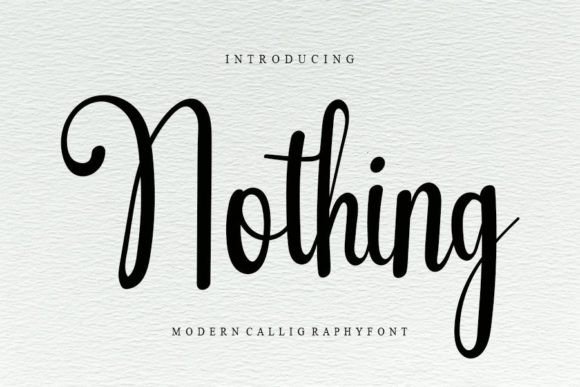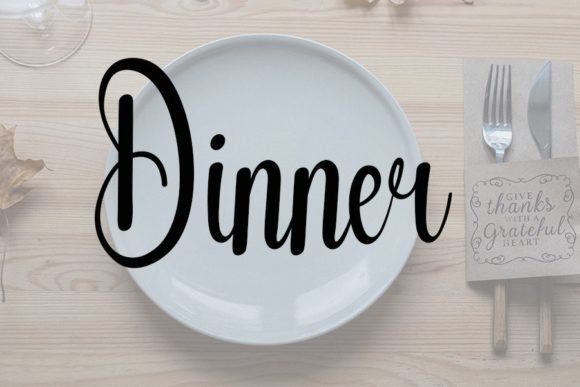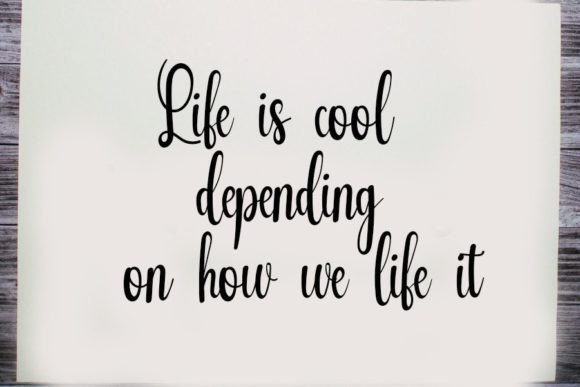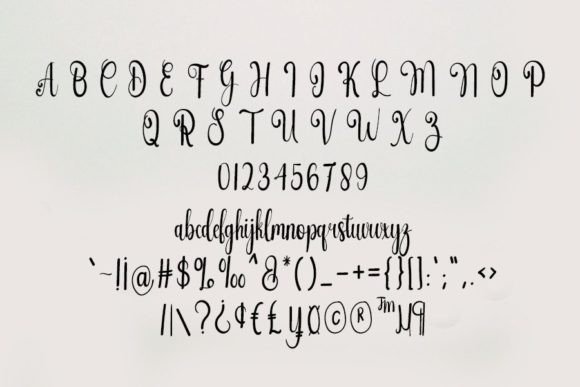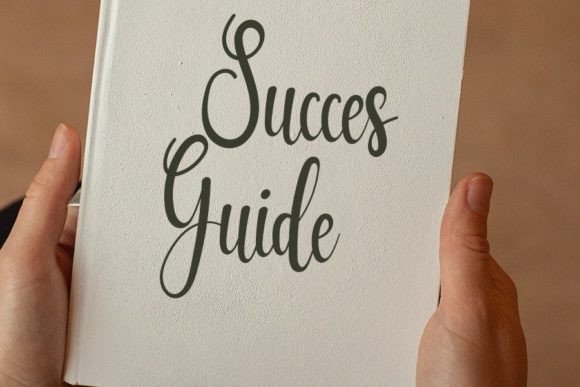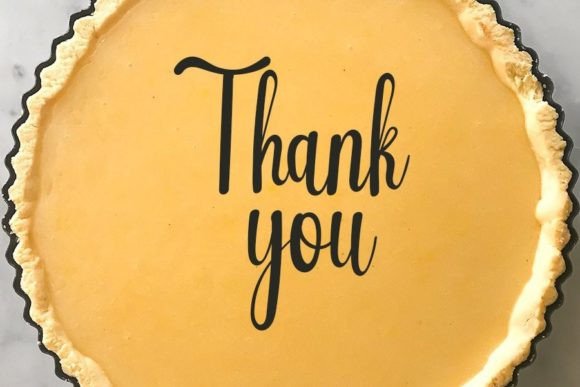
Nothing Font
About Nothing Font
“Nothing” is a friendly handwritten font meticulously crafted to become a beloved choice for designers. It skillfully balances its classy calligraphic influences with a contemporary and fresh vibe. When integrated into your creative projects, “Nothing” elevates them, making them truly outstanding.
The font’s friendly and approachable nature adds a warm and welcoming touch to your text, making it suitable for a wide range of applications. Whether you’re working on greeting cards, social media graphics, branding materials, invitations, or any other creative endeavor, “Nothing” shines with its versatility, enhancing the overall visual appeal of your designs.
“Nothing” features carefully designed letterforms that seamlessly blend elegance with modernity. Its handwritten charm exudes authenticity, creating the impression that your text was crafted with care and precision. This authenticity establishes a personal connection with your audience, making your messages more relatable and engaging.
Incorporating “Nothing” into your creative projects allows you to infuse them with a sense of warmth and sophistication. Its friendly handwritten style adds a human touch, making your designs approachable and memorable. Whether you’re aiming for a casual or elegant look, “Nothing” adapts to your needs, making it a versatile choice for designers seeking a font that stands out with its friendly and contemporary appeal.
Embrace the charm of “Nothing” and let it become a staple in your design toolkit. Its friendly handwritten design adds a touch of personality and authenticity to your projects, ensuring they shine with creativity and warmth. Whether you’re crafting personal invitations or professional branding materials, “Nothing” ensures that your creative endeavors leave a lasting impression.